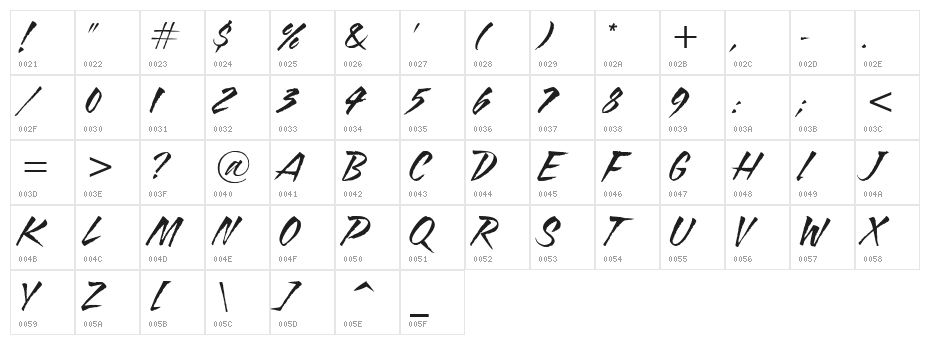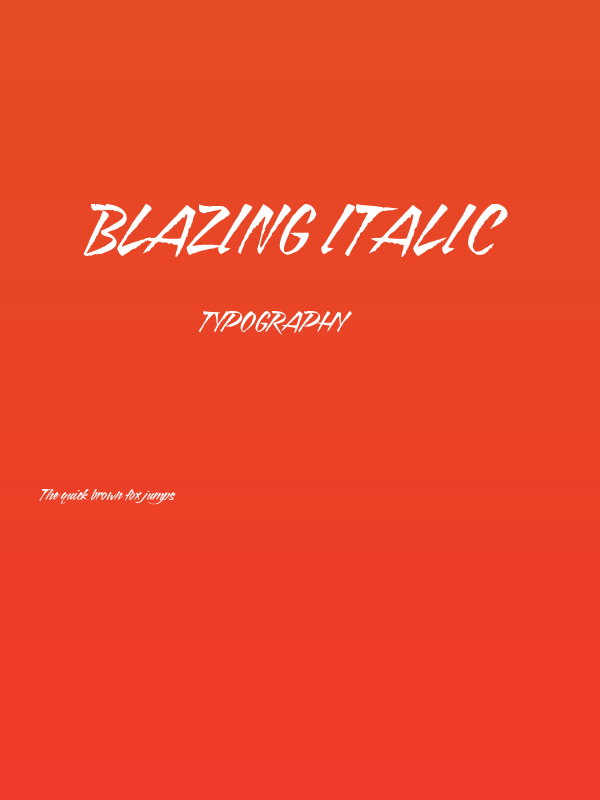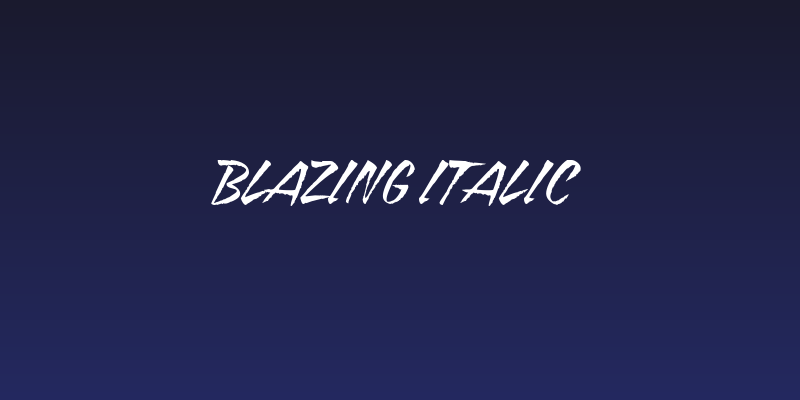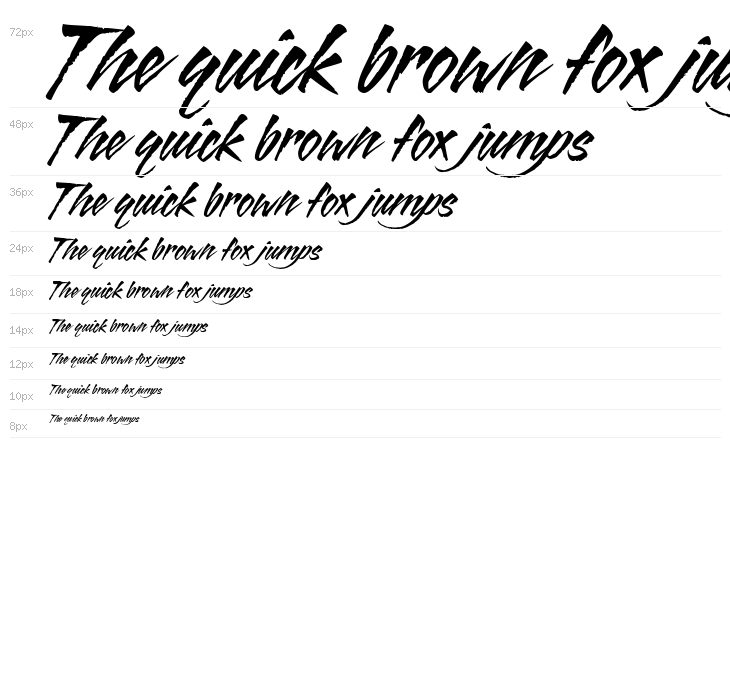
Blazing Italic Font
Blazing Italic Description
This font features a dynamic and energetic style with a strong italic slant, giving it a sense of motion and urgency. The strokes are bold and expressive, with a brush-like texture that adds a handcrafted feel. The uppercase and lowercase letters maintain a consistent flow, while the numerals and special characters complement the overall aesthetic. The design is both modern and edgy, making it suitable for projects that require a bold statement.
| Proposed Projects | Ideal for branding, posters, headlines, and any design that requires a strong, dynamic presence. |